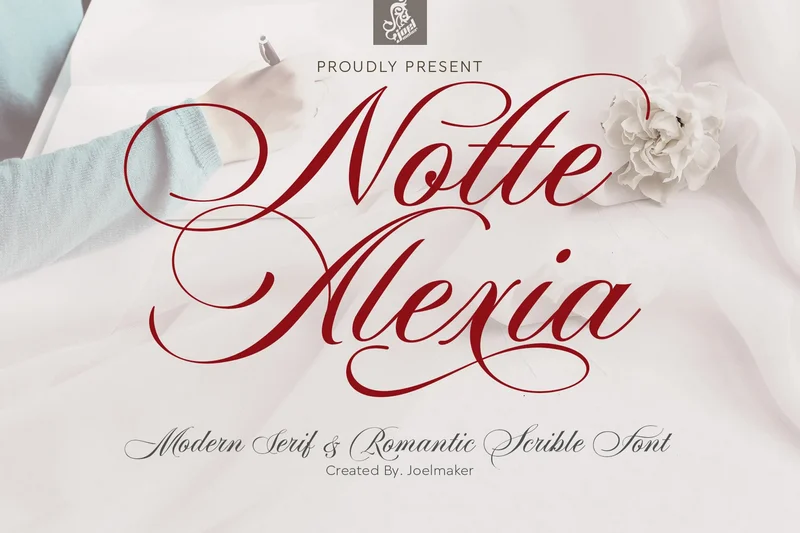
Notte Alexia Script
Notte Aleixia Script is an ancient style font painted in a modern style, combined with unique ligatures and a beautiful and attractive swirly, making this font more energetic and juxtaposed with a very beautiful Script, it looks even more dynamic.